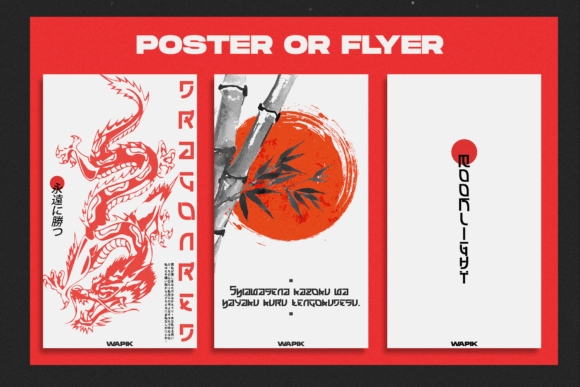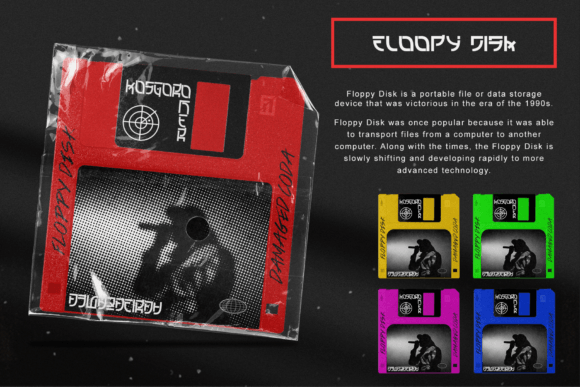
Introduction to Japan Ramenten Font
Japan Ramenten is a modern Japanese-inspired display font.
Key Features of Japan Ramenten Font
Why Choose Japan Ramenten Font?
Japan Ramenten Font offers exceptional quality and versatility, making it a valuable addition to your design toolkit. Whether you’re creating for personal projects or commercial use, Japan Ramenten Font delivers professional results.